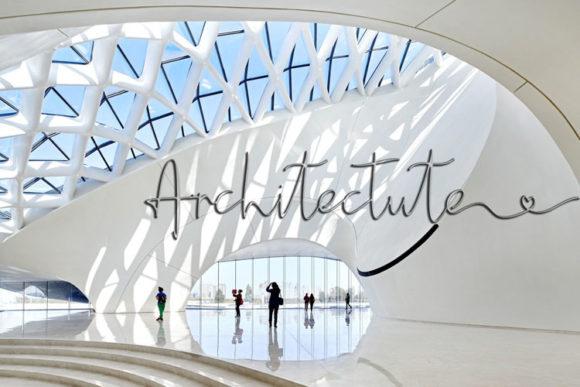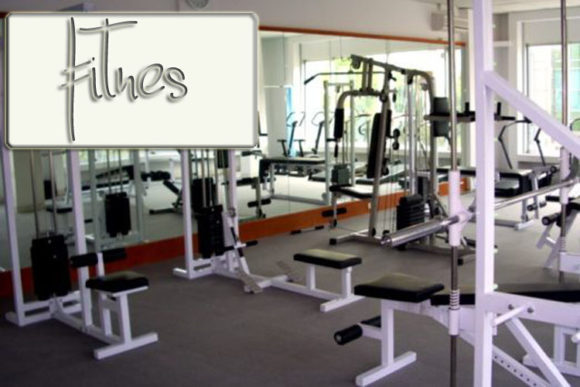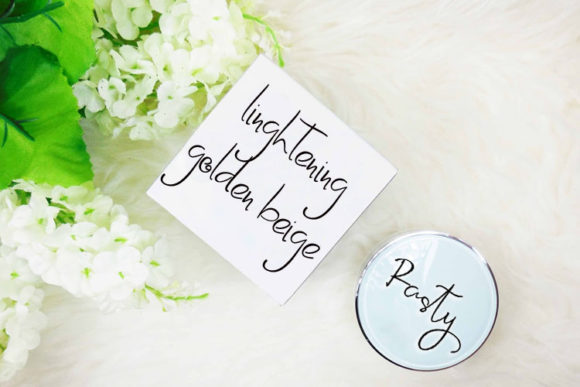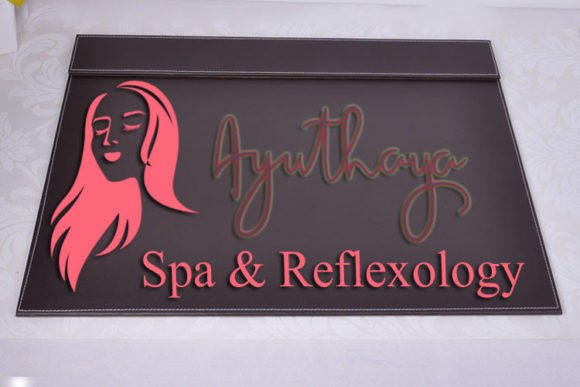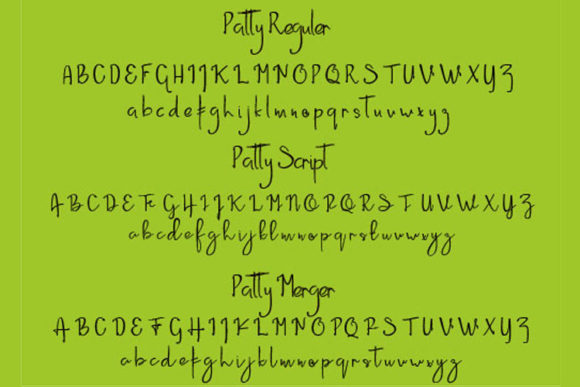
Patty Font
About Patty Font
The Patty is a modern handwritten script. Its unique forms of calligraphy give it a natural feel.
It comes in three versions which gives you the opportunity to create multiple unique designs!